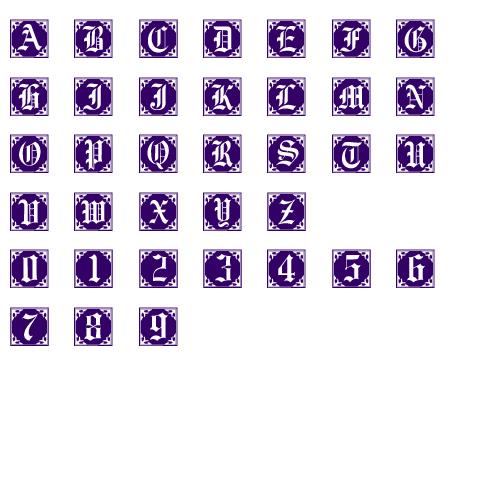
Gothic Caps Alphabet by Fireside Threads and other embroidery fonts available at EmbroideryDesigns.com.
Gothic Caps machine embroidery font showcases ornate capital letters with intricate curves, perfect for personalizing bags or apparel. Available in PES, DST, and 10 other formats for various stitching needs.